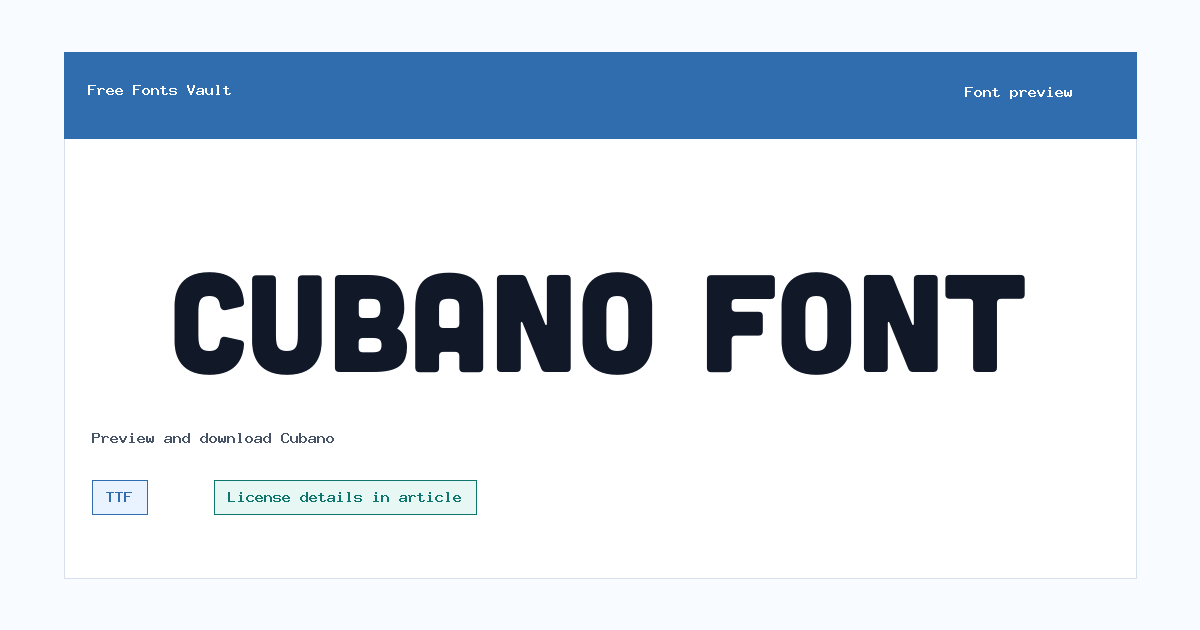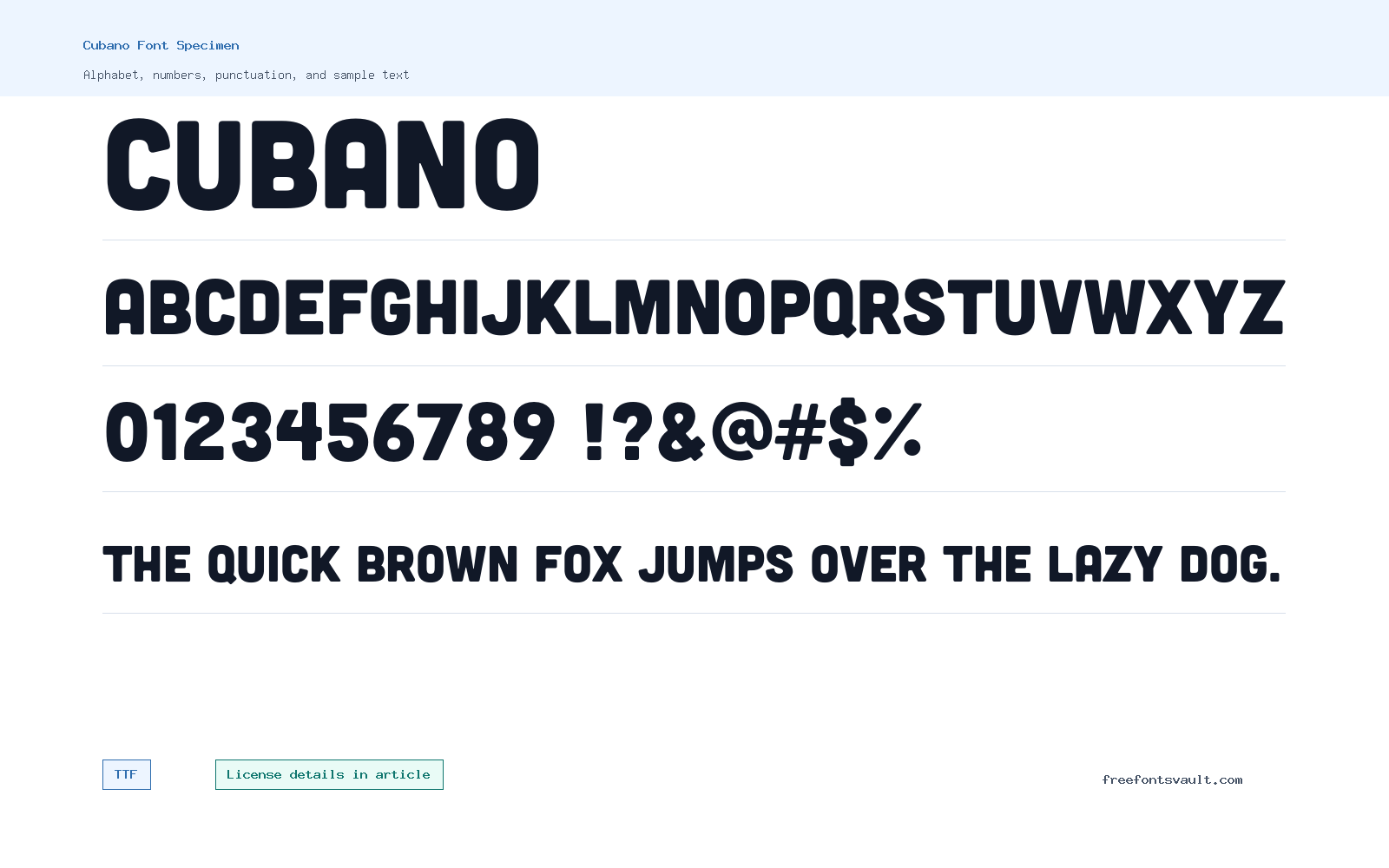
Cubano
- Designer Chandler Van De Water
Cubano is a rounded, all-caps display font with heavy strokes and a confident headline shape. It feels bold and friendly at the same time, which makes it useful when a title needs impact without looking harsh.
About Cubano Font
Cubano is the kind of typeface you reach for when the words are meant to be noticed first. The broad strokes, compact width, and softened corners make it feel sturdy but approachable. It can work well for posters, badges, packaging-style designs, stickers, website headers, social graphics, and logo drafts where a short word or phrase needs a strong visual anchor.
For layout work, Cubano pairs best with a quieter sans serif. Let Cubano handle the main title, product name, badge text, or hero word, then use the simpler font for descriptions, navigation, captions, and article copy. This gives the page hierarchy and keeps the bold display style from overwhelming the whole design.
If you are comparing it with similar headline fonts, look for the balance between weight and warmth. Cubano has enough mass to hold a layout together, but the rounded construction keeps it from feeling stiff. That is why it suits playful brands, food graphics, retro labels, and bold editorial titles where the design needs energy and quick recognition.
- Rounded all-caps display style with wide, heavy strokes
- Semi-condensed feel that helps short titles hold together
- Strong fit for badges, posters, packaging concepts, and headline graphics
- Bold poster titles and social media graphics
- Badges, stickers, labels, and packaging mockups
- Short logo drafts, website headers, and product names
- Friendly display text that needs weight without sharp corners
Cubano is credited to Chandler Van De Water.
Use Cubano for short text and keep the supporting copy in a more readable font. Check the preview with your real wording, especially if your design includes numbers, punctuation, or tight horizontal space.
What is Cubano best used for?
Cubano is best for short display text such as posters, badges, logos, labels, and website headers.
Is Cubano good for paragraphs?
No. It is a bold all-caps display font, so long reading text is better set in a simpler companion typeface.
Who designed Cubano?
Cubano is credited to Chandler Van De Water.